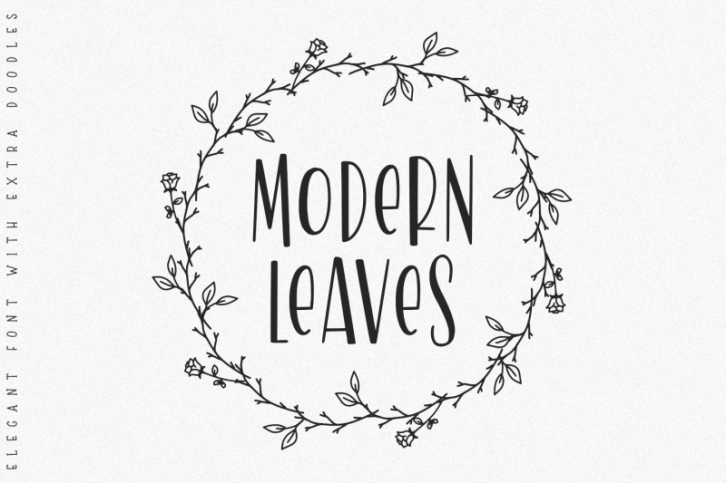
Introducing
MODERN LEAVES
Elegant Font with Extra Doodles
This font is great for apparel, branding, logo, magazine, quotes, wedding, packaging, advertising, and more, that need a cheerful feel.
It came with uppercase only, punctuations, symbols & numerals. Also, support multilingual and already PUA encoded.
The doodles make this font so perfect